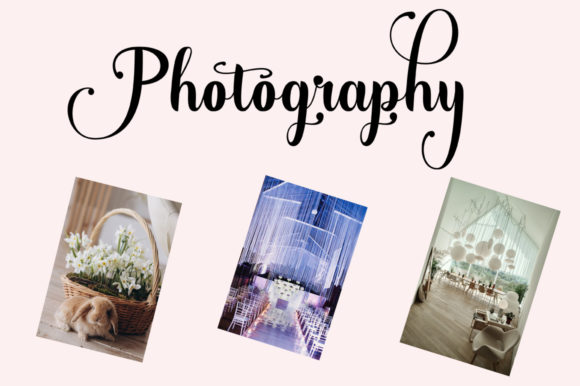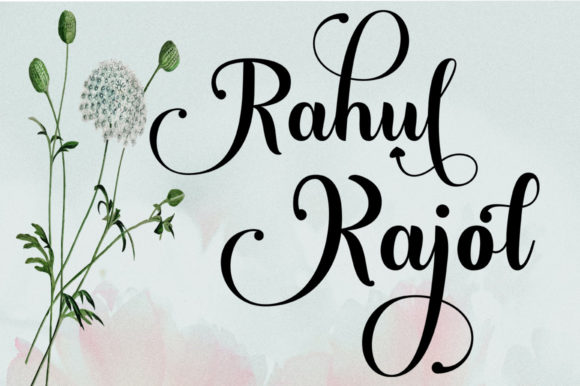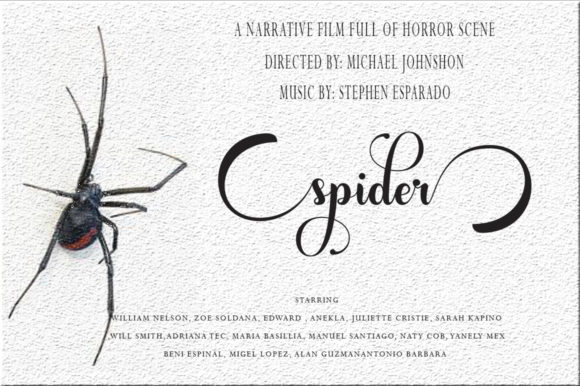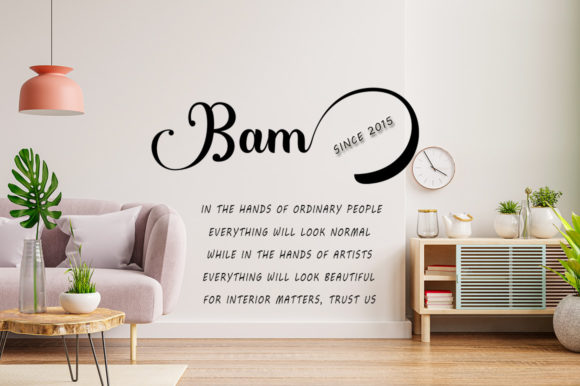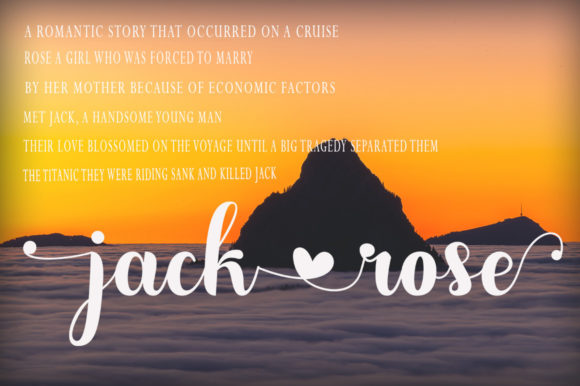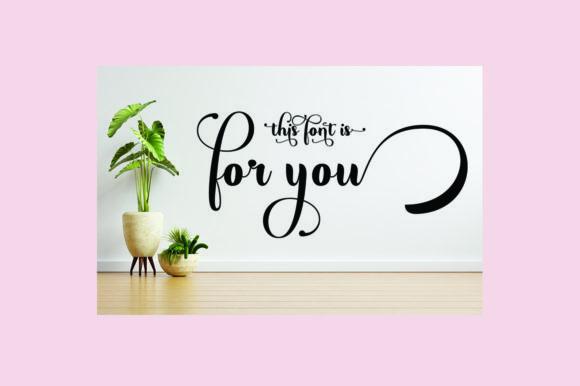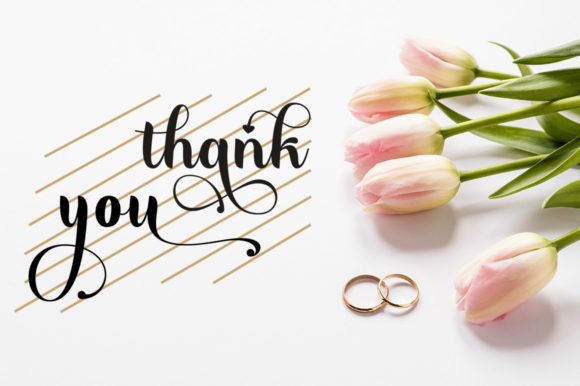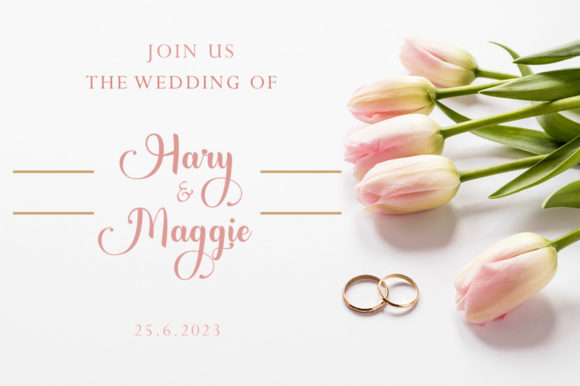
Sajicl Font
Sajicl is a beautiful and subtle script font that exudes a classy, elegant, and modern appearance, making it a versatile choice for a variety of stylish creations. This font is PUA encoded, ensuring easy access to a wide array of amazing glyphs and ligatures, allowing designers to enhance their projects with unique and sophisticated elements.
The beauty of Sajicl lies in its subtle script style, which adds a touch of refinement and grace to any design. Whether used for branding projects, elegant invitations, stylish packaging, or other creative endeavors, this font brings a sense of sophistication that elevates the overall aesthetic.
The PUA encoding feature enhances the user experience, allowing designers to effortlessly access the diverse set of glyphs and ligatures that Sajicl offers. This flexibility empowers designers to customize and personalize their creations with ease, adding a unique and distinctive touch to their projects.
In summary, Sajicl is more than just a font; it’s a beautiful and subtle script typeface that embodies class, elegance, and modernity. Its versatility makes it suitable for a wide range of stylish creations, and the PUA encoding ensures that designers can explore the full potential of its amazing glyphs and ligatures. With Sajicl, your designs are poised to achieve a level of sophistication that leaves a lasting impression.